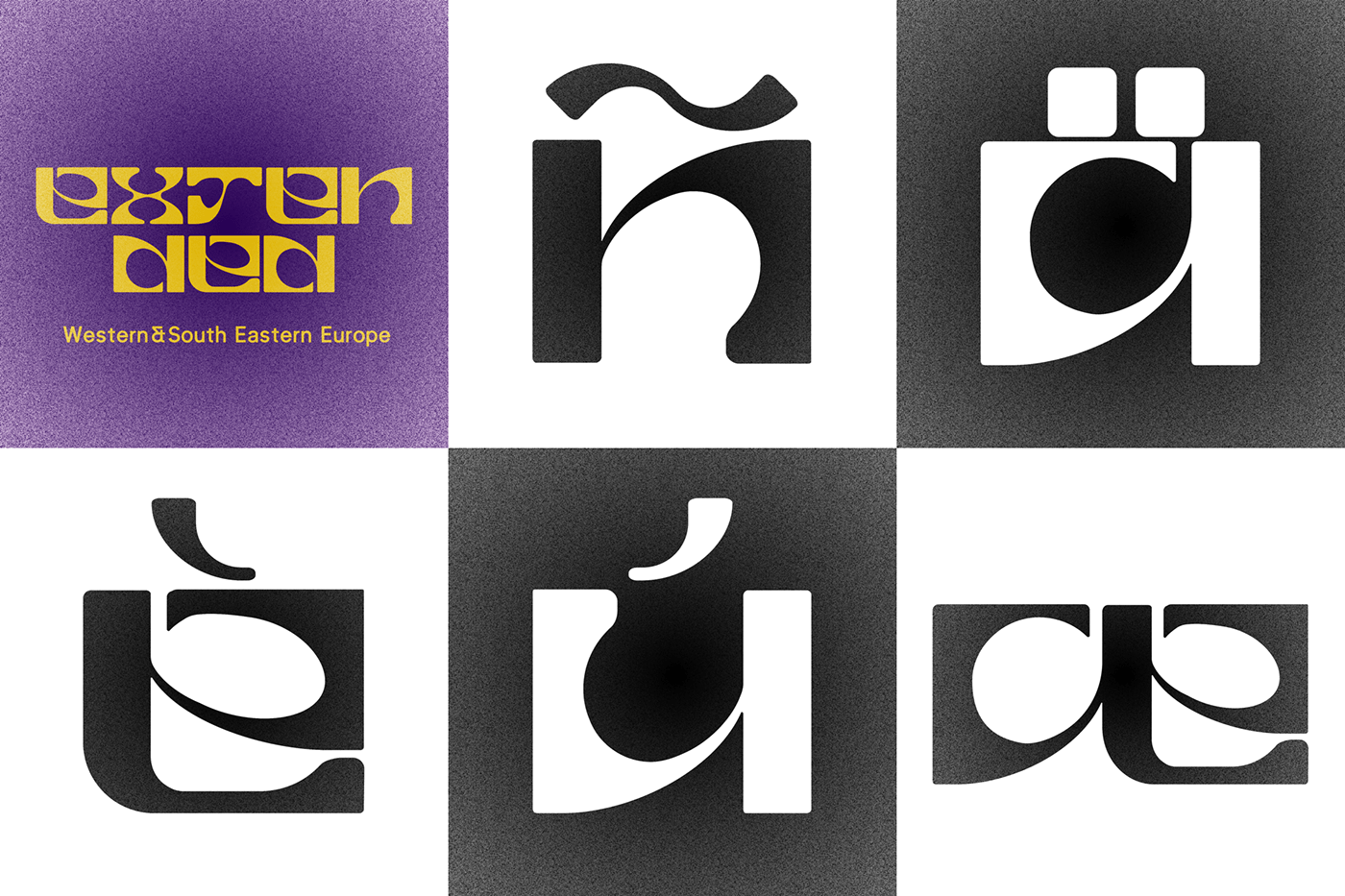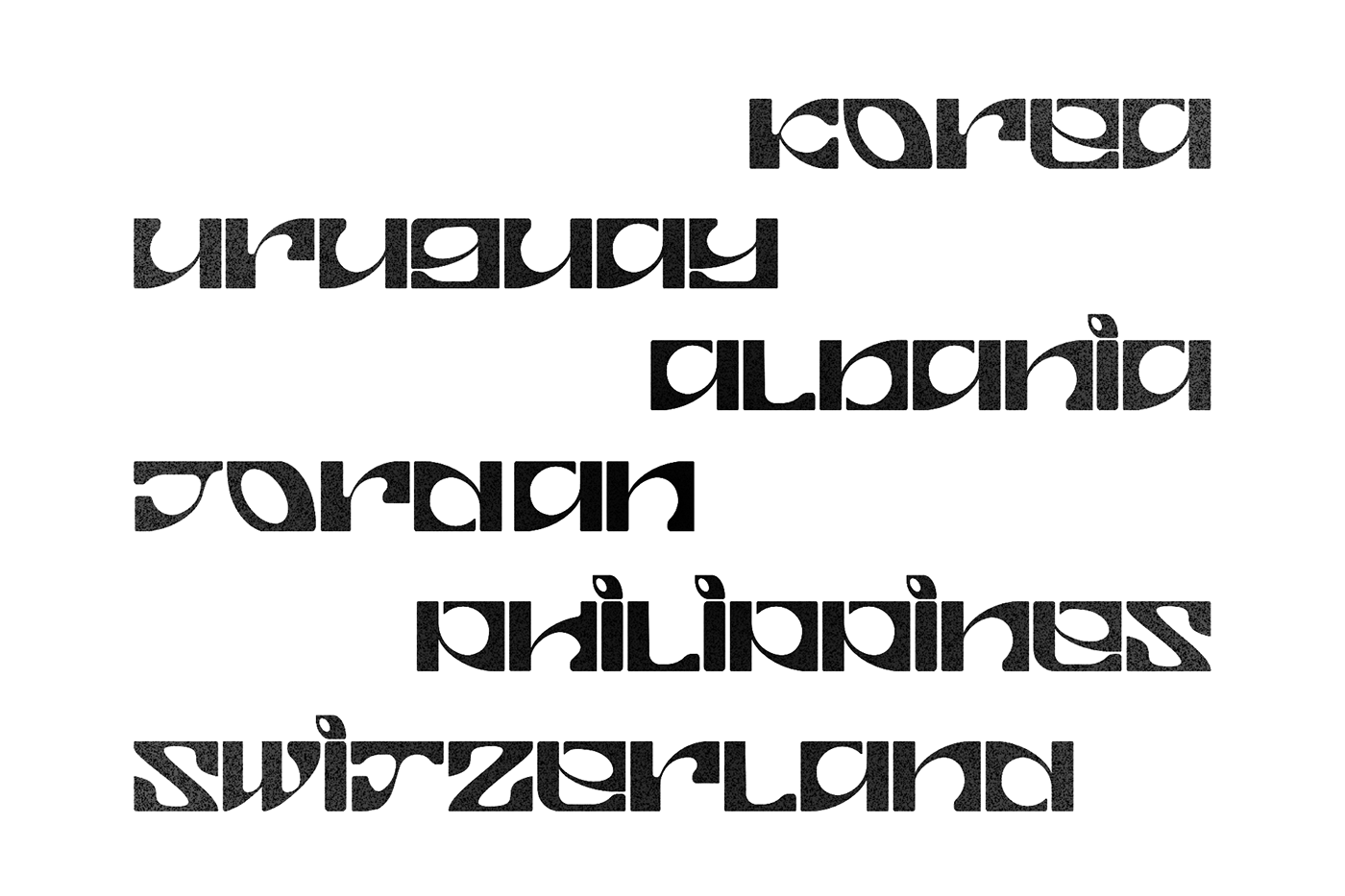
Erkin Variable Typeface - Psychedelic Roots
Erkin is a 60's psychedelic rock inspired modern font. It gets its name from a legendary artist called "Erkin Koray".
The idea was to design a funky typeface that fits Erkin Koray's album covers (and also other 60's-70's generic cover arts), but still can be used in modern designs.